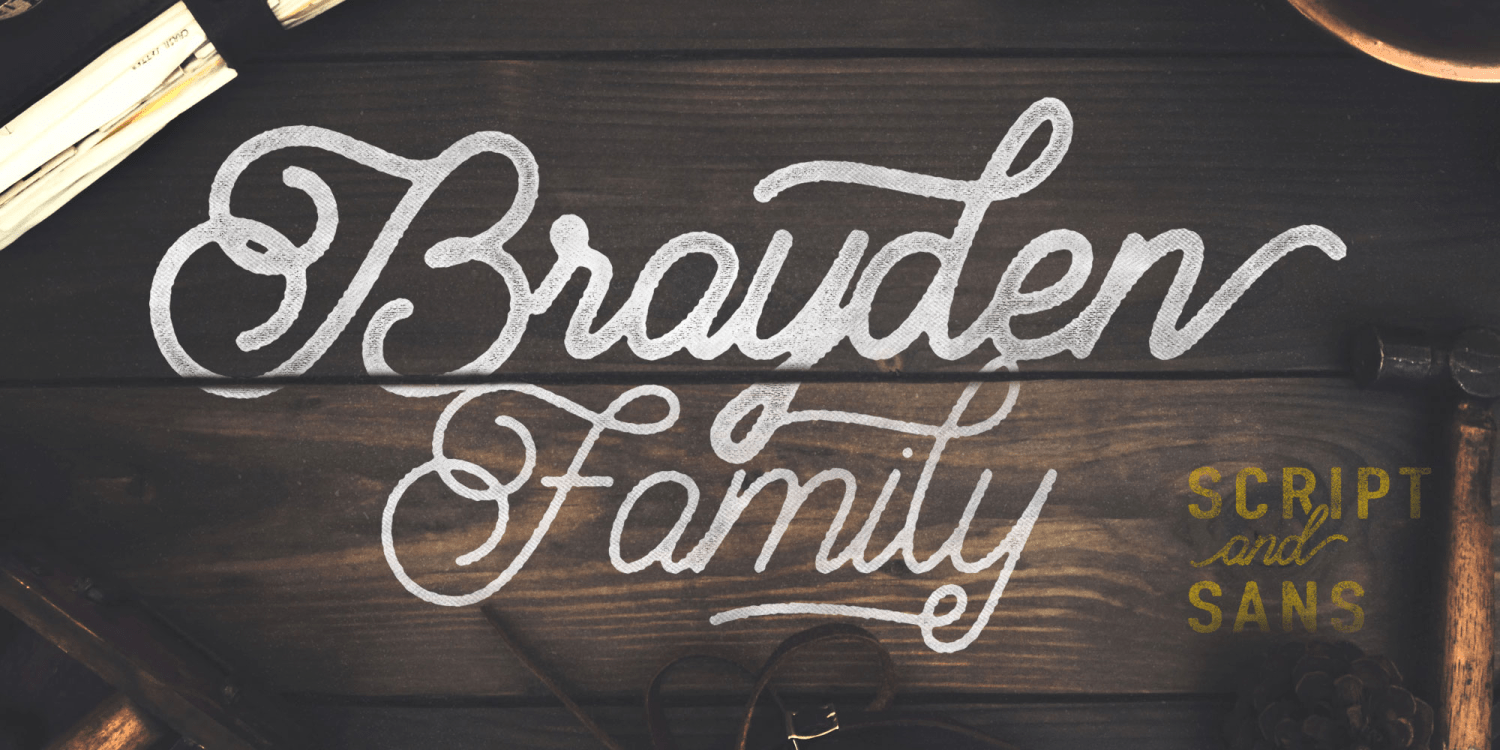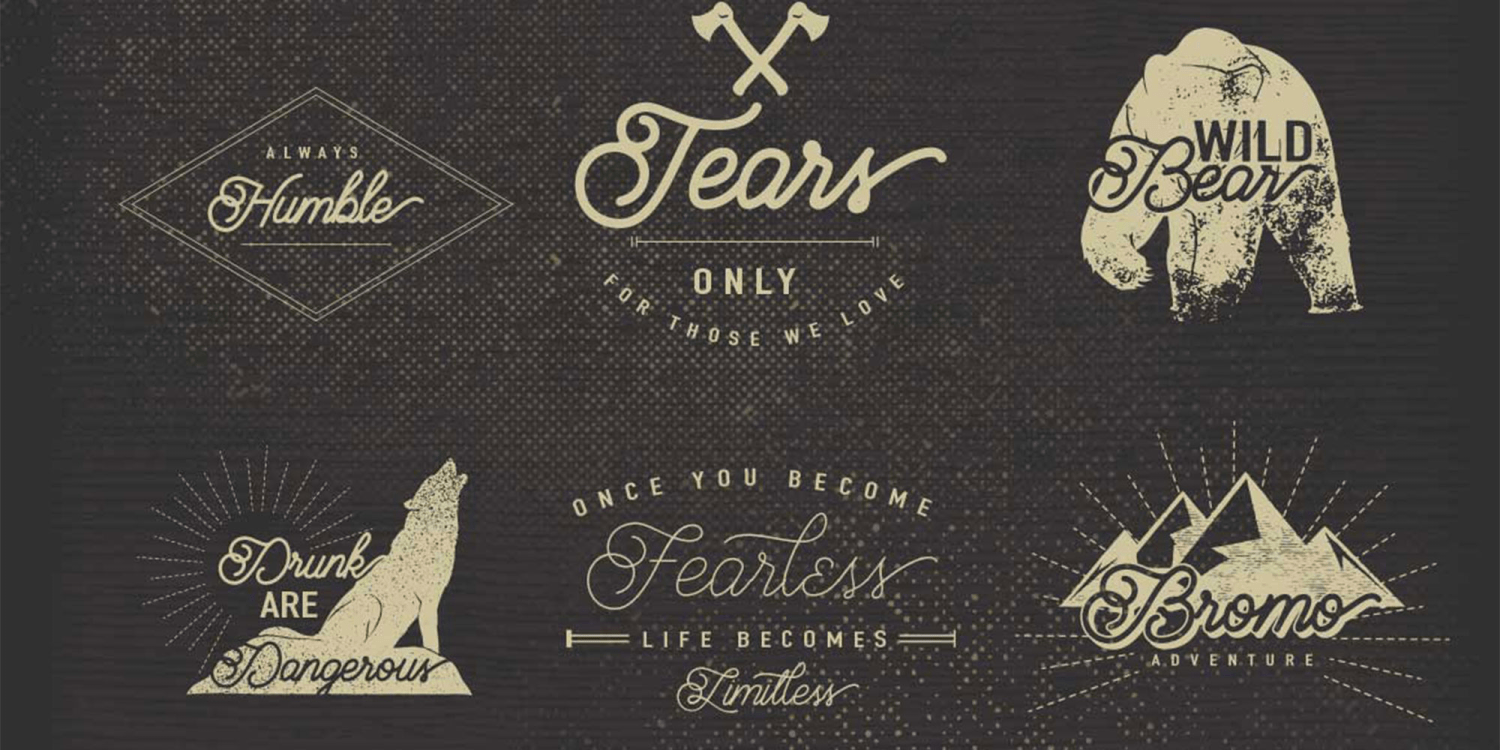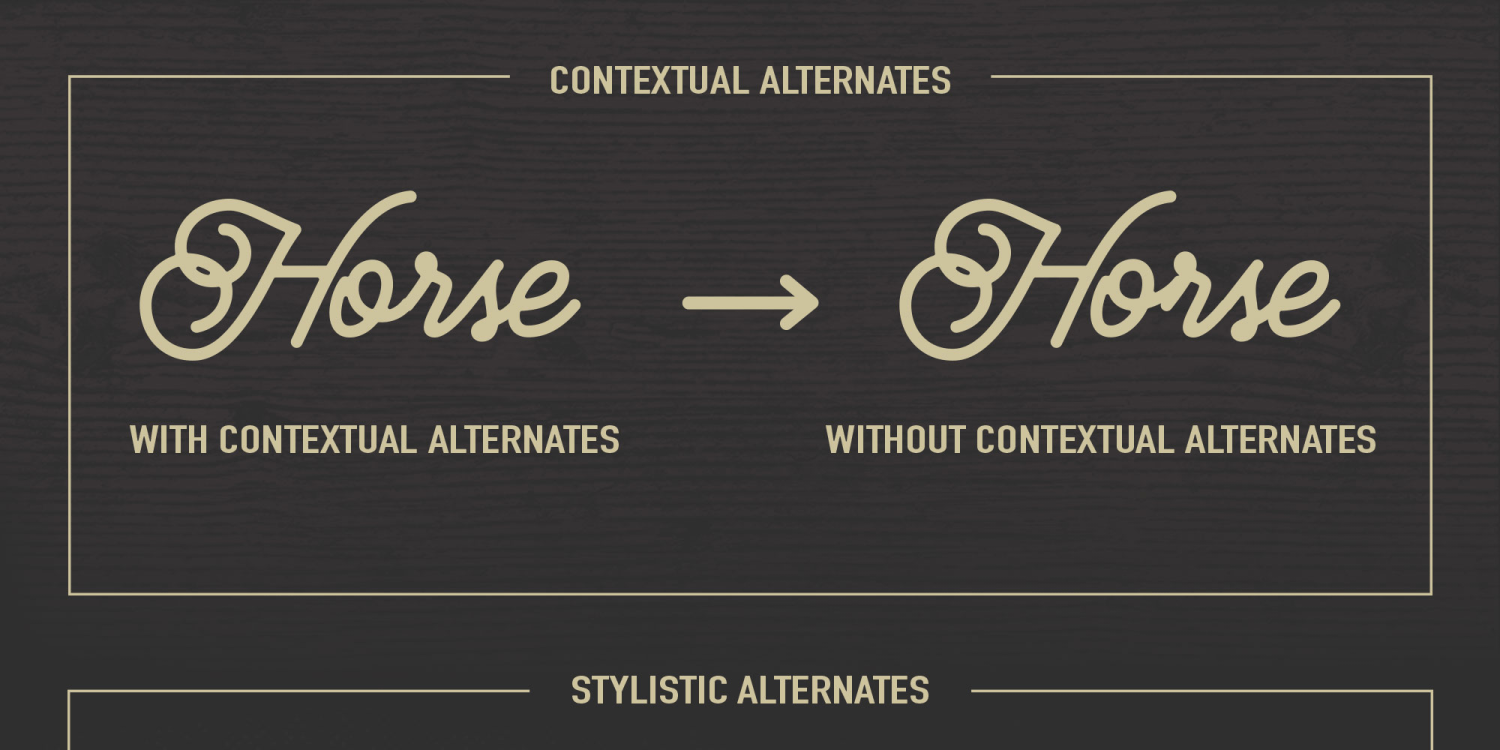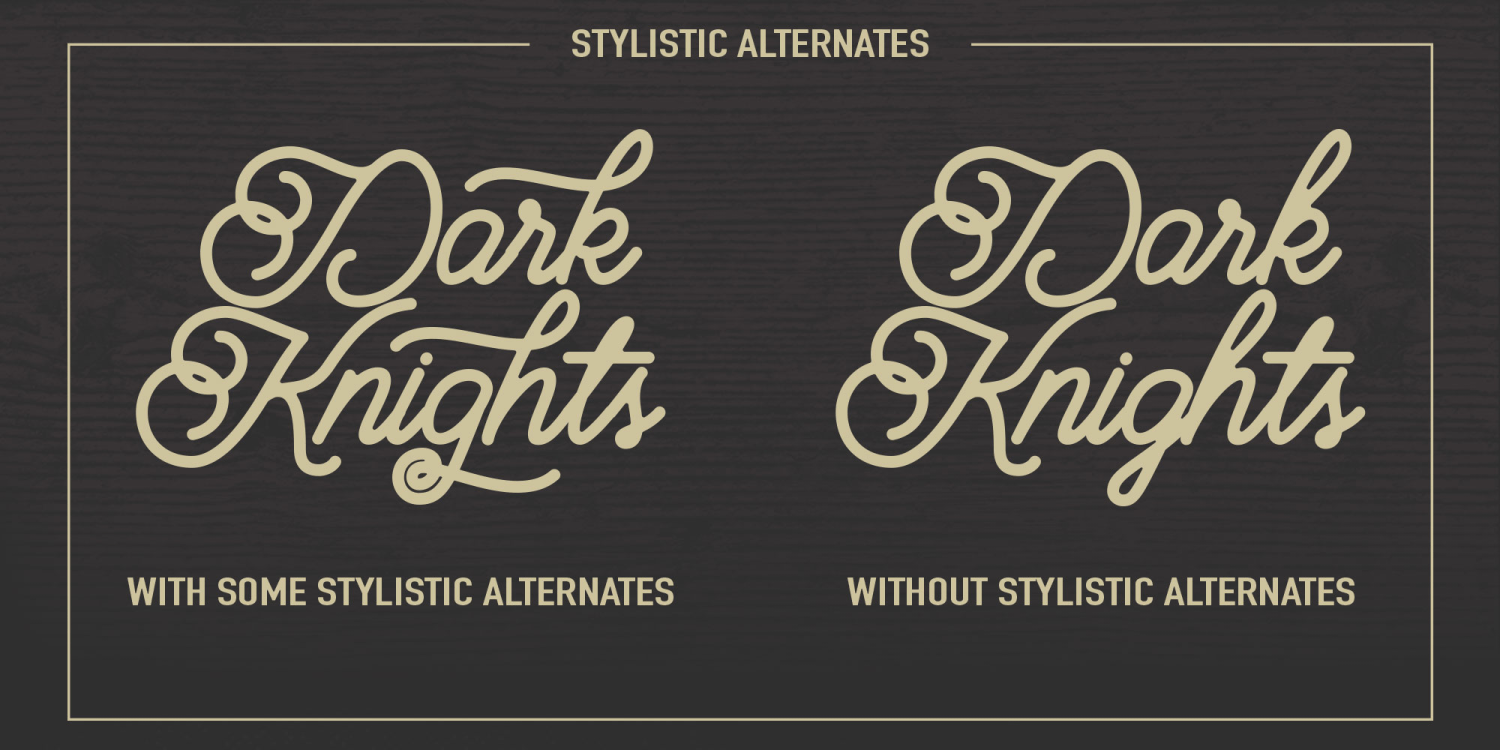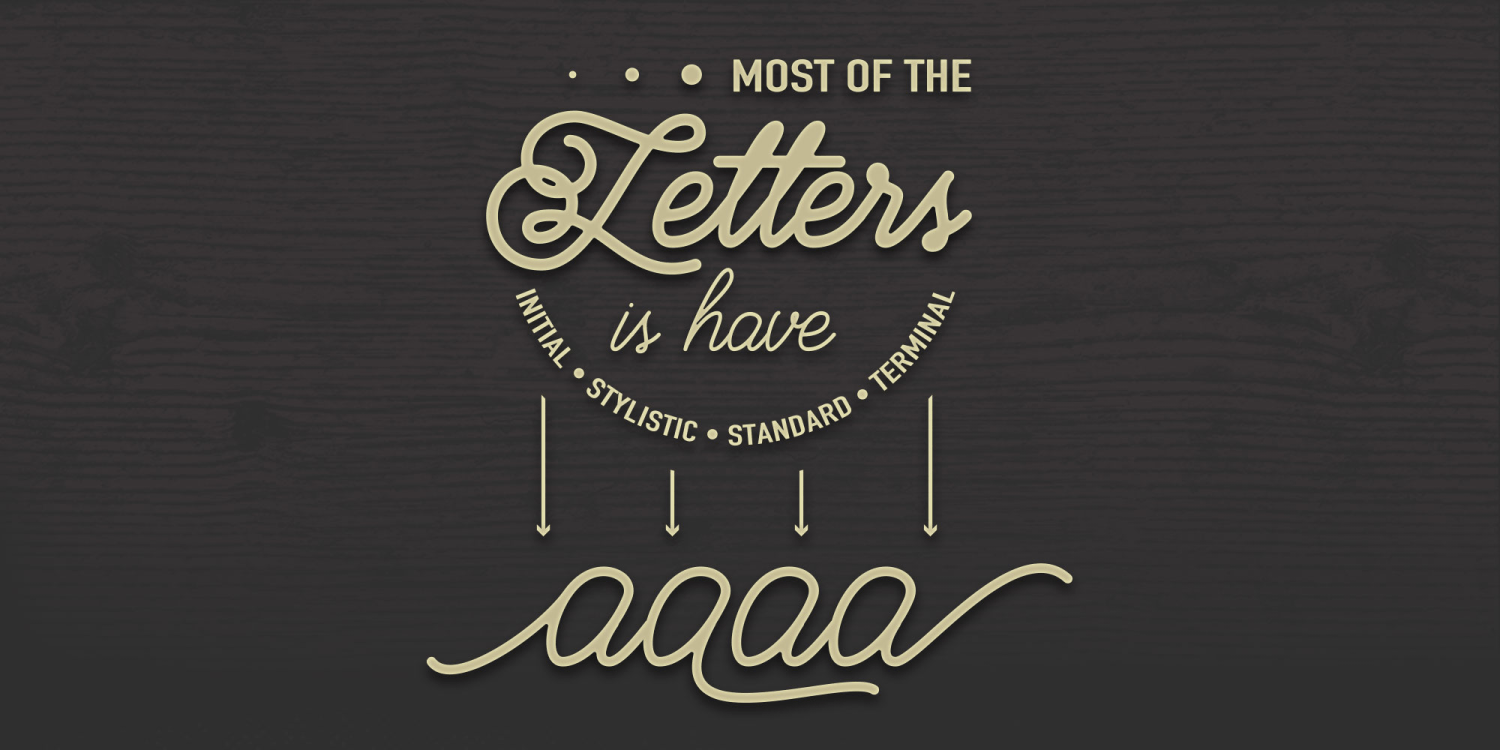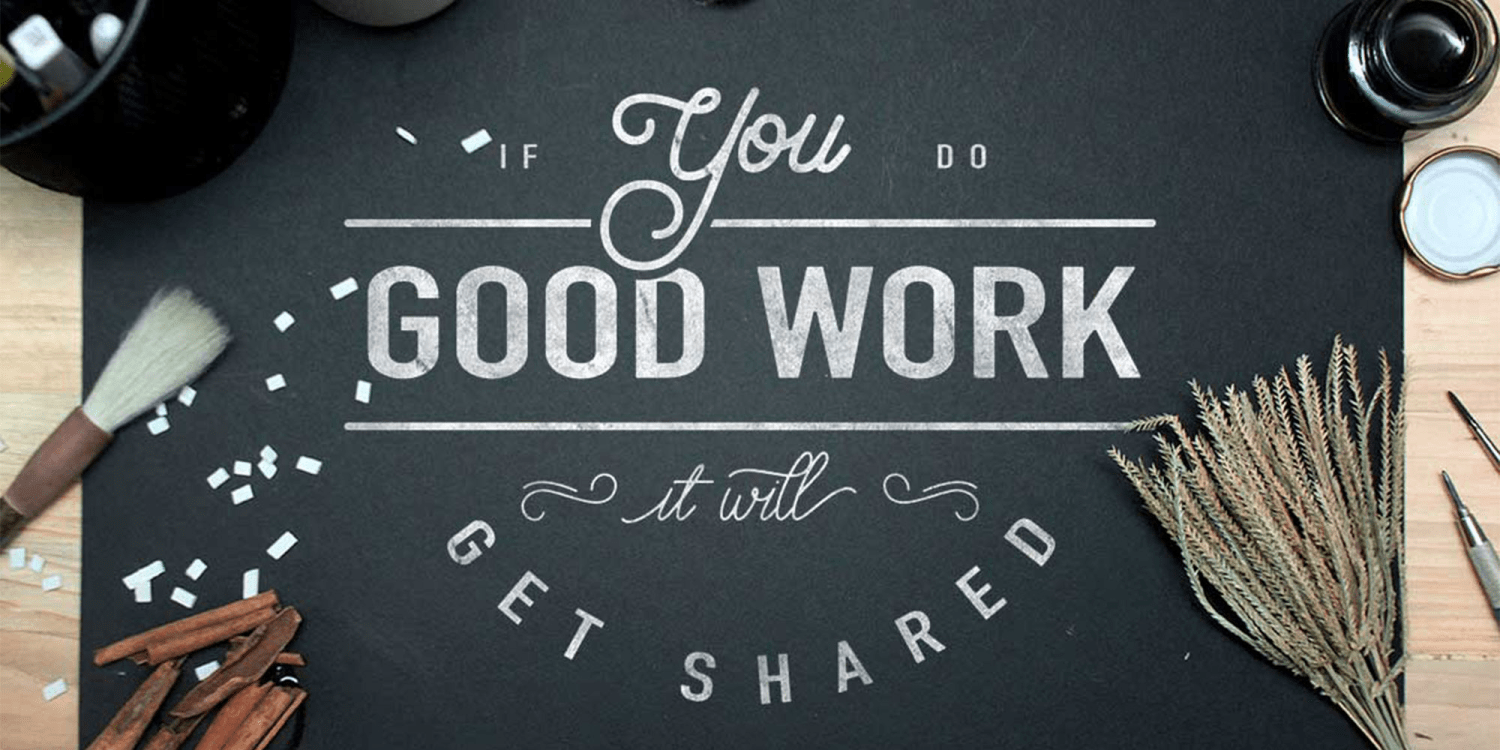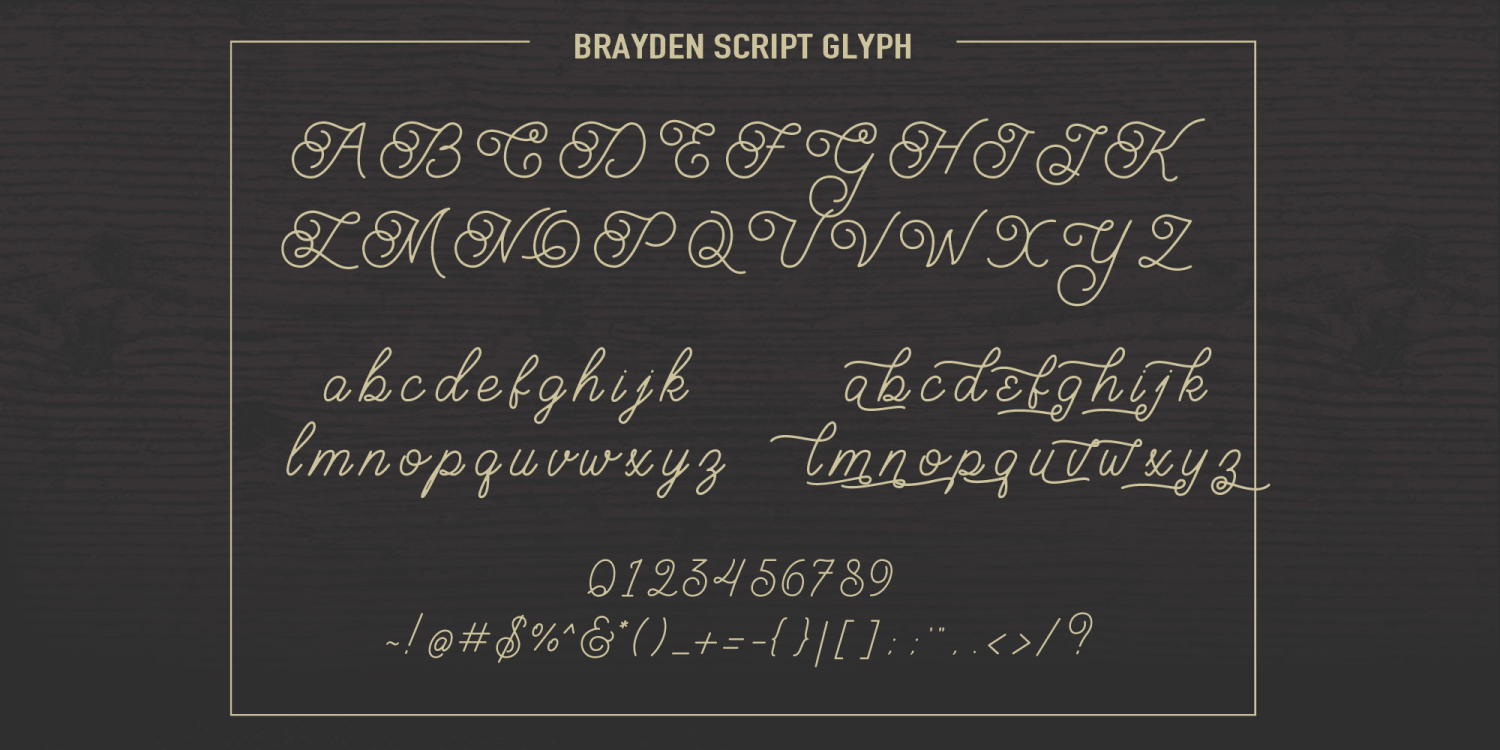
Brayden
The five font Brayden Family includes a script typeface in 3 weights, 1 sans serif typeface, and a set of badges for creating beautiful combinations. As with my font Octavia Script, initial and terminal forms are included for all weights of the script faces. Great for logos, lettering, clothing design, posters, labels, quotes, etc.
Controlling with Contextual Swashes made it easier to change turning on and off the initial and terminal forms.
The Brayden font family includes 310 glyphs.